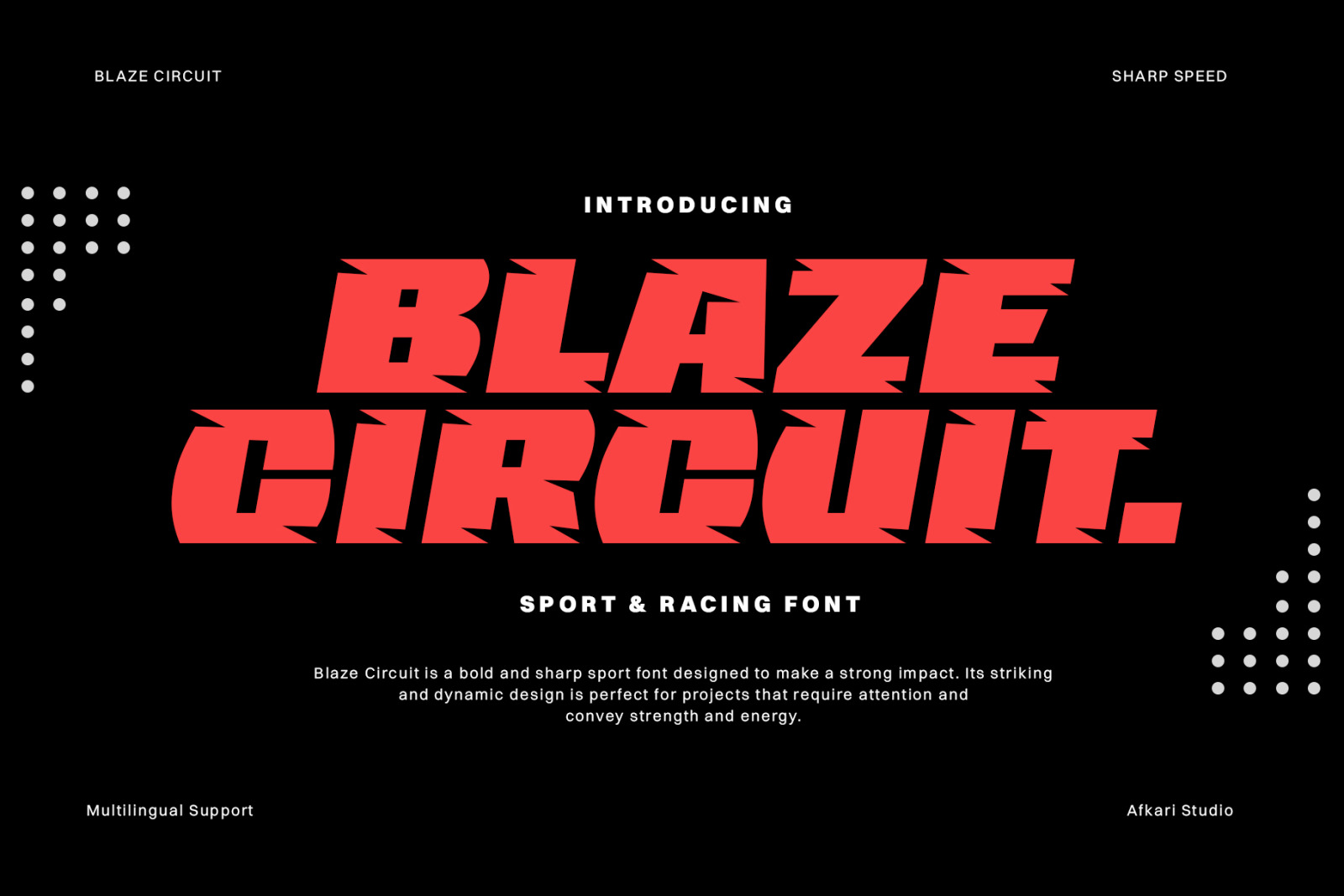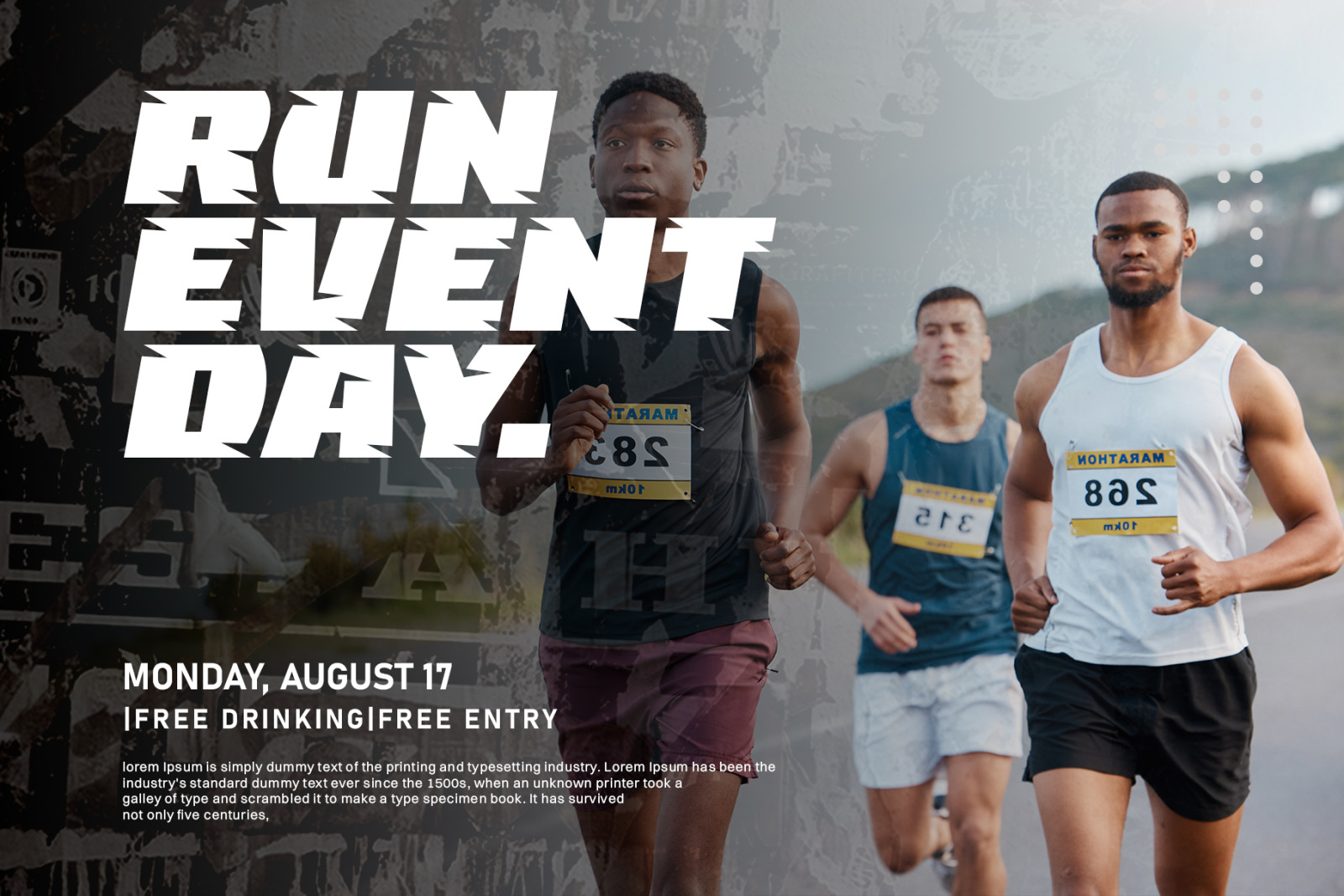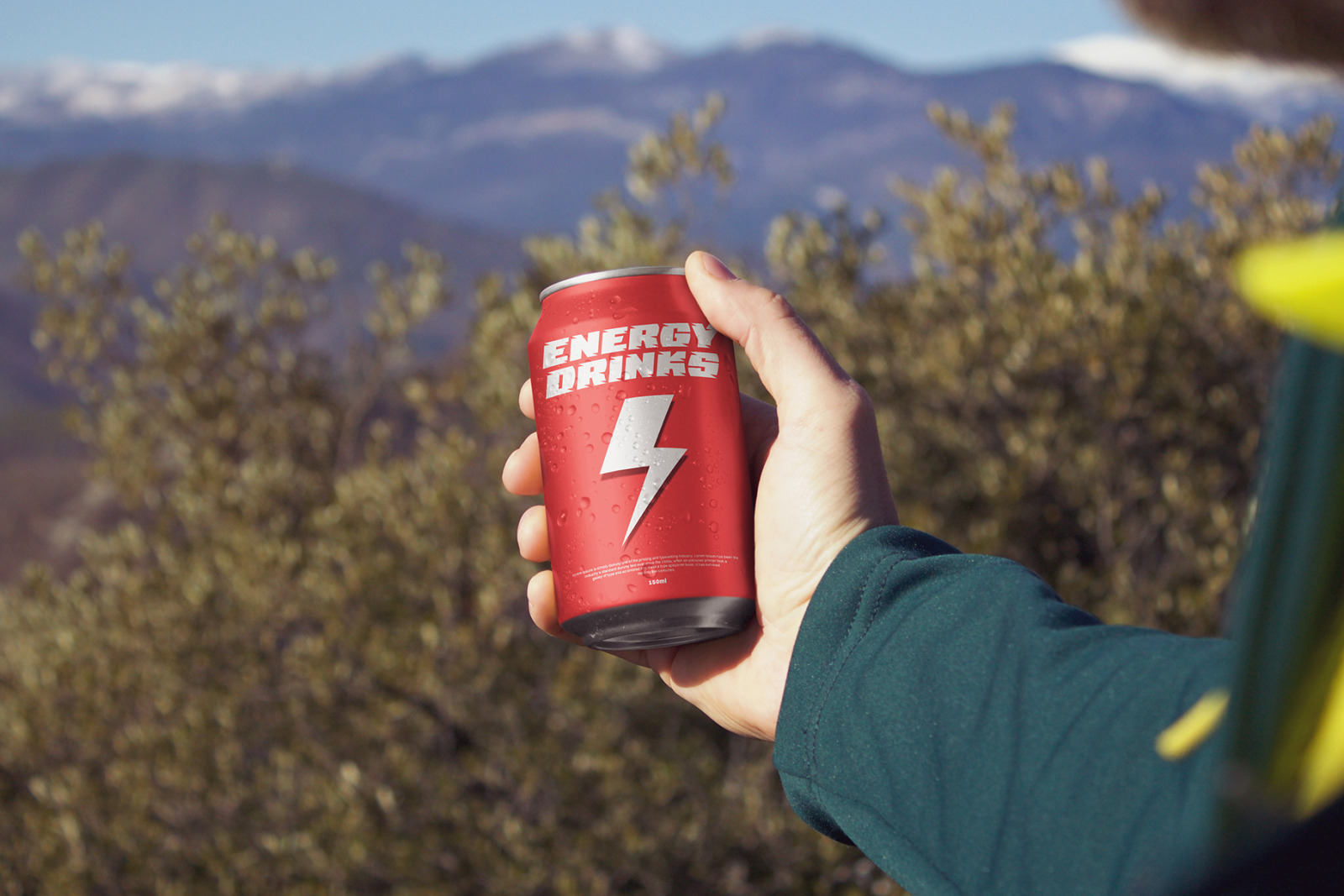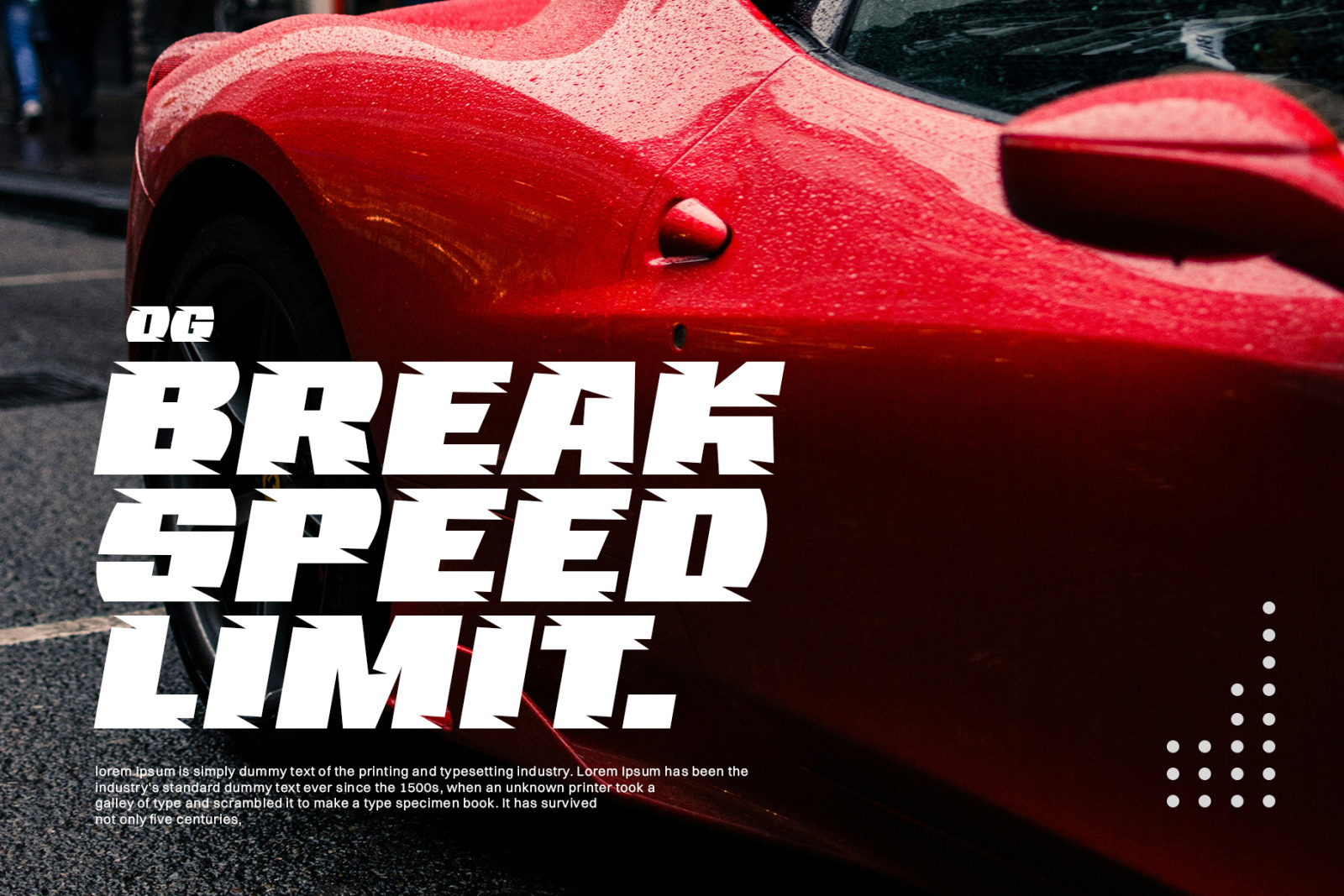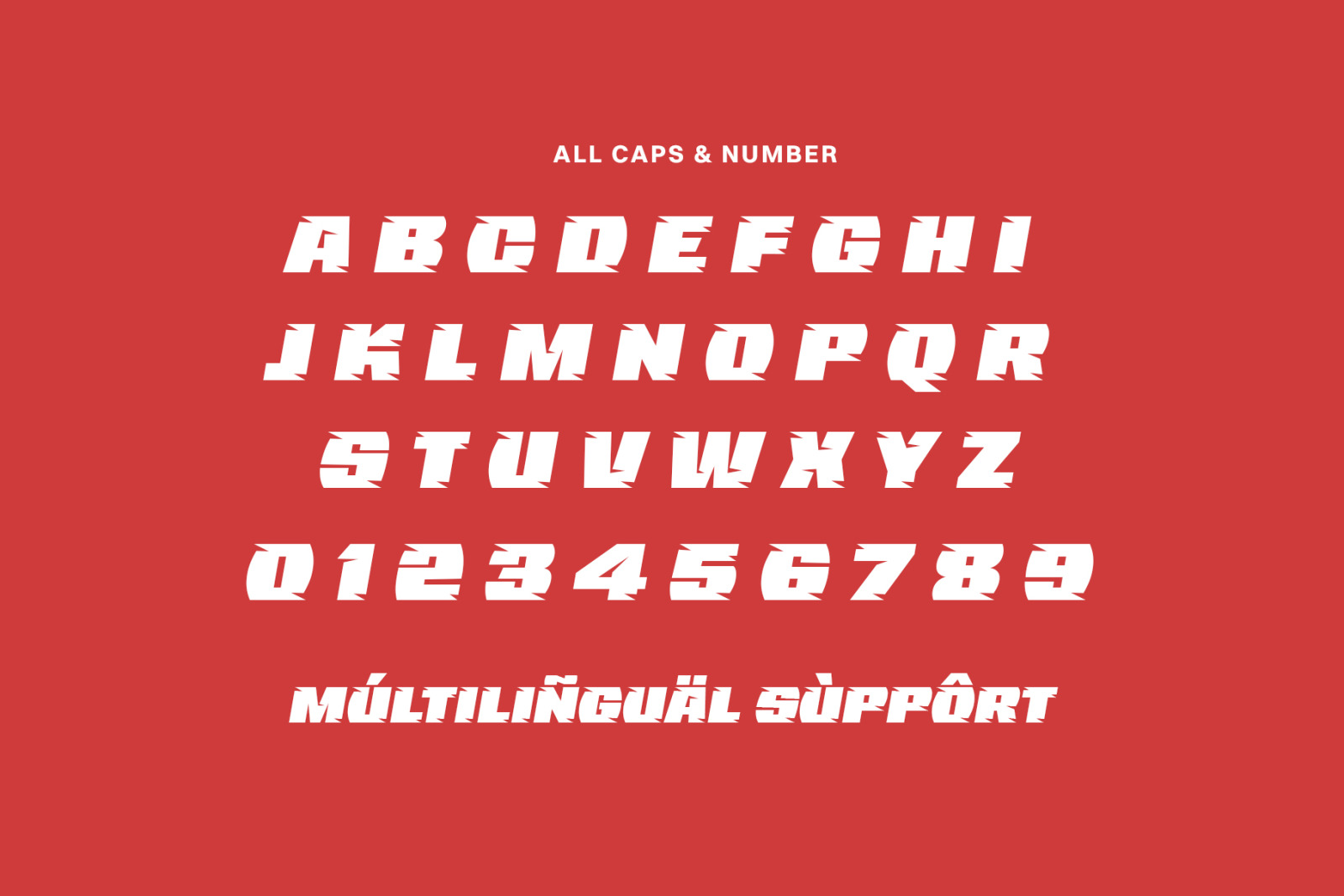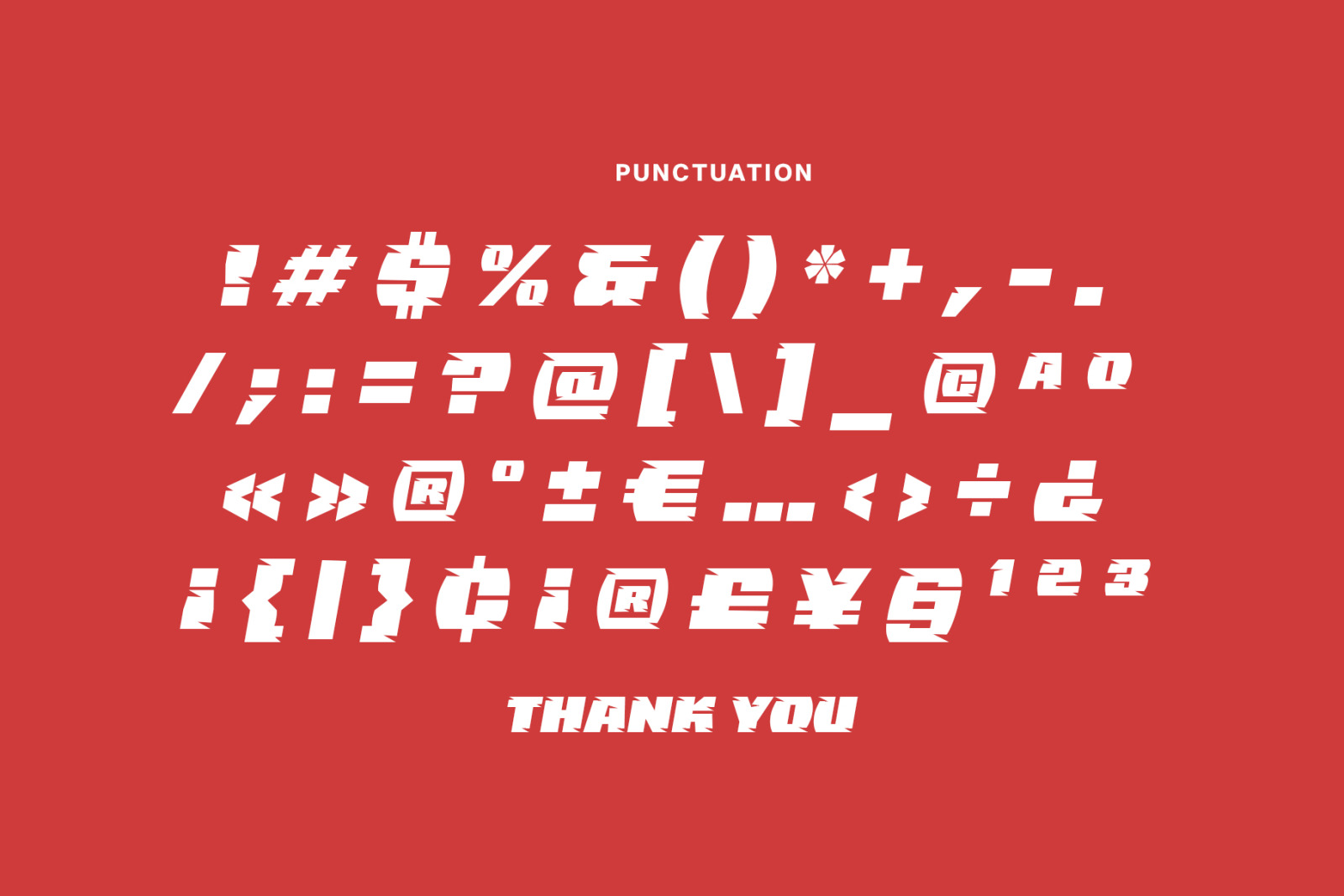
Blaze Circuit - Bold Sport & Racing Font
Introducing Blaze Circuit – Bold Sport & Racing Font. Blaze Circuit is a high-octane typeface, expertly designed to embody the adrenaline and speed of the racing world. With its bold, dynamic structure, this font is set to ignite your creative projects, infusing them with a sense of motion and power.
At its core, Blaze Circuit captures the spirit of high-speed sports, reflecting the precision and intensity of competitive racing. Its strong lines and aggressive angles make it the perfect choice for a variety of graphic applications, ensuring it stands out across multiple platforms and mediums.
Highlighted Features:
- Complete Set: Includes uppercase letters, numerals, and essential punctuation marks.
- Bold & Dynamic Design: Strong lines and sharp angles convey speed and power.
- Multilingual Support: Contains characters for diverse languages, including ä, ö, ü, Ä, Ö, Ü, ß, ¿, and ¡.
Blaze Circuit goes beyond simple functionality; it becomes a symbol of speed and energy. Its adaptability allows it to seamlessly integrate into motorsport branding, dynamic posters, racing event flyers, high-performance apparel, and more.
This font’s versatility is matched by its ability to inject a sense of thrill and momentum into every project it touches. Whether it’s amplifying the excitement of a racing event or adding a bold edge to athletic branding, Blaze Circuit brings a fierce, energetic presence that captivates and excites.
In conclusion, Blaze Circuit Bold Sport & Racing Font isn’t just a typeface; it’s a driving force of creativity, a bridge between the raw power of racing and modern design aesthetics. Embrace its energy, leverage its versatility, and let it propel your projects to the forefront of bold, dynamic design. Unleash the full potential of Blaze Circuit, where each character roars with speed and every design races to the finish line of modern sports aesthetics.